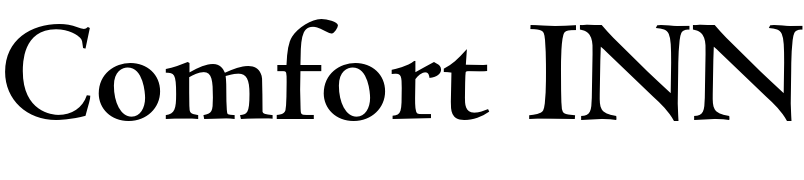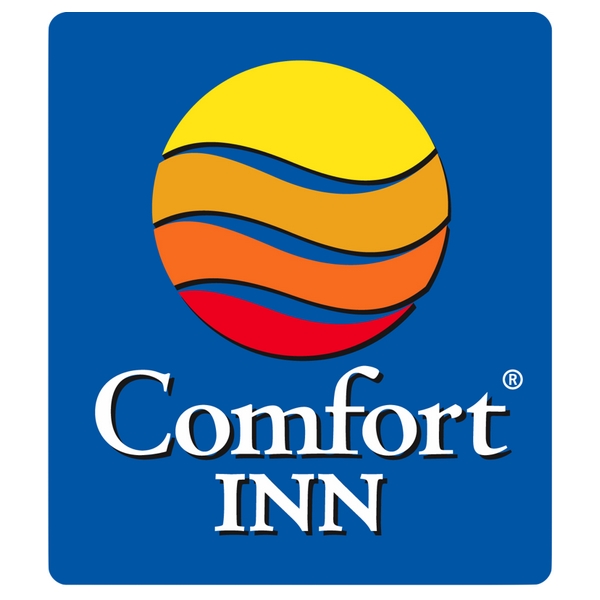
Comfort Inn Font
Fonts in UseComfort is a hotel chain owned by Choice Hotels International, Inc. with locations across the United States and internationally. The Comfort Inn hotels provide comfortable rooms, complimentary breakfast, and various amenities for a pleasant and convenient stay.
The Comfort Inn's current logo, which has been in use since 2005, is most likely set in Centaur Bold, a humanist font initially created by Bruce Rogers in 1914 as titling capitals.